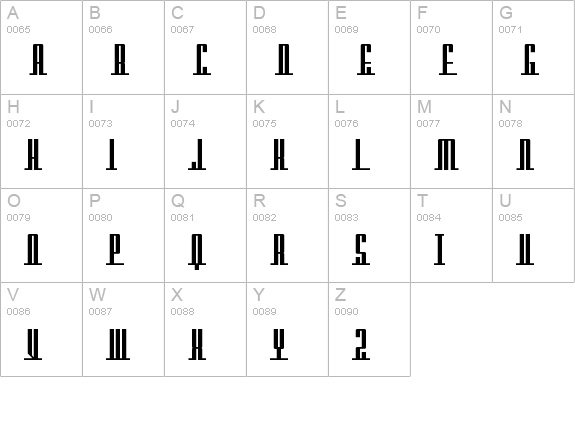
Americana Dreams Upright Bold is a strong, high-contrast variant in the Americana typeface family \xE2\x80\x94 well suited to headlines, attention-grabbing titles, and strong calls-to-action.
Americana Dreams Upright Bold font is a versatile and eye-catching typeface that exudes a sense of nostalgia and Americana charm. Its bold and upright design makes it perfect for headlines, posters, and branding projects that require a touch of vintage flair. The strong and distinct letterforms of this font are sure to captivate and engage your audience. What sets Americana Dreams Upright Bold font apart is not only its unique style but also the fact that it is available for free download at FontsMarket.com. This means that you can easily access and use this stunning font in your design projects without any cost, making it a valuable addition to your font collection. Embrace the spirit of Americana and bring your creative vision to life with Americana Dreams Upright Bold font today.